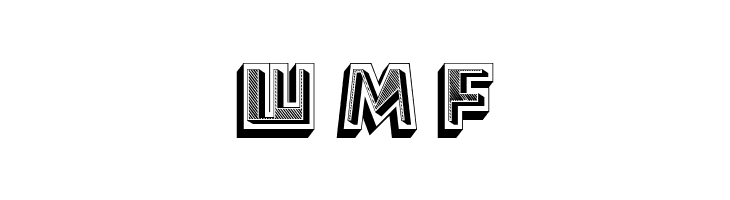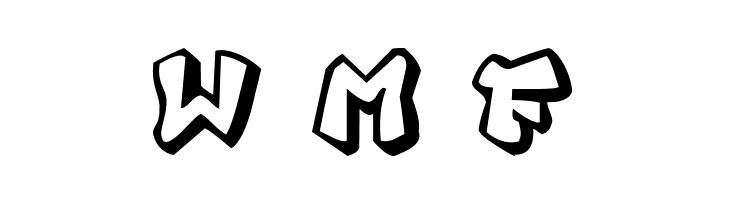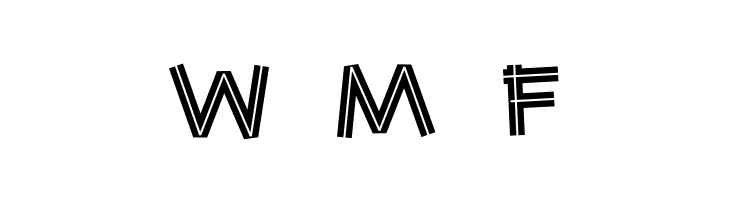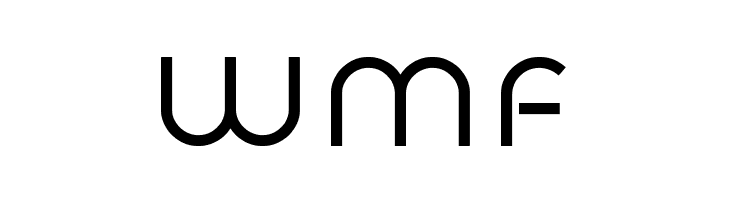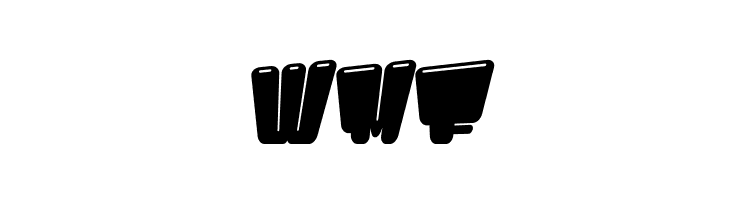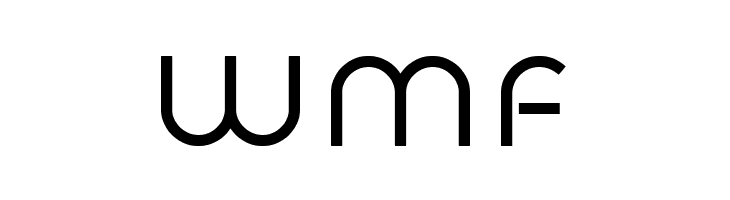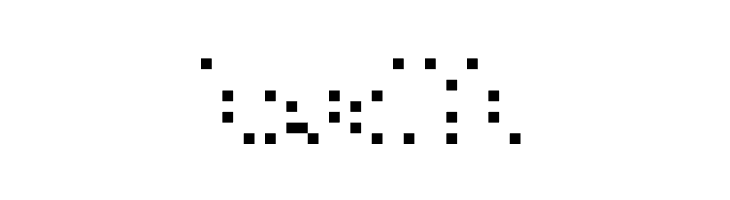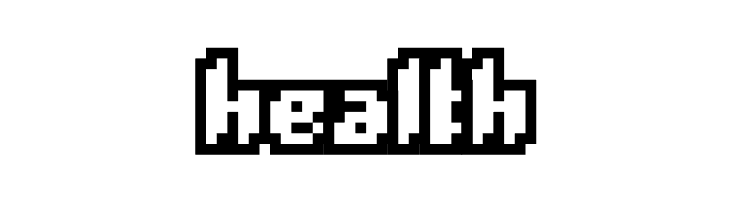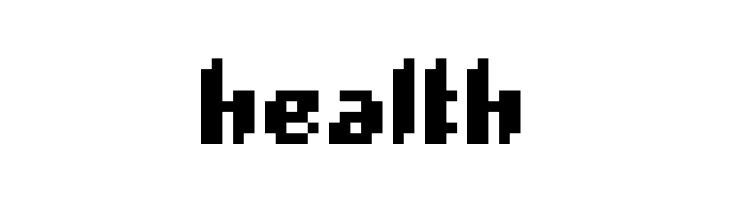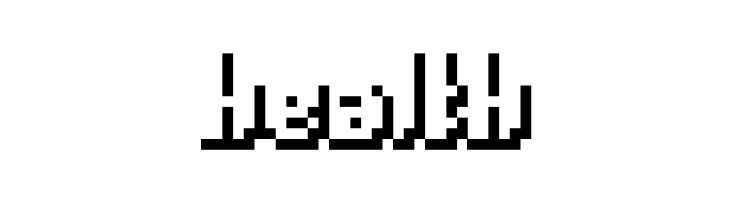
A sleek, modern font with geometric influences and rounded edges.
A modern, geometric font with clean lines and a futuristic style.
A bold, geometric font with rounded edges and a strong visual presence.
A bold, 3D geometric font with textured interiors and shadow effects.
A playful, bold font with double-lined strokes and a hand-drawn feel.
A bold, playful font with a 3D effect and cartoonish style.
A modern, flowing script font with elegant slant and smooth curves.
A pixelated, retro-style font reminiscent of classic 8-bit video games.